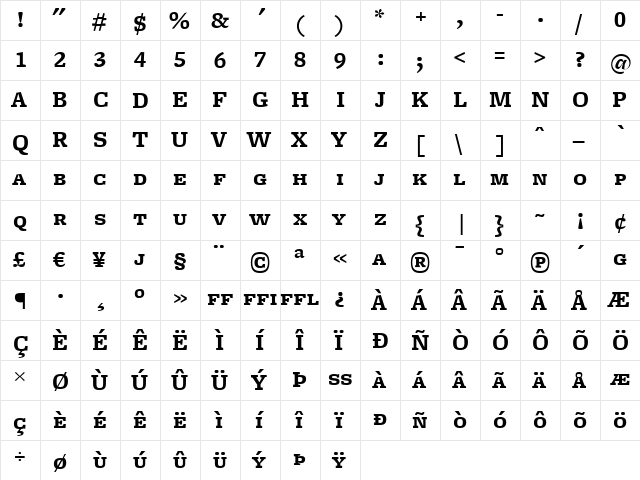
FreightMicro BoldSC
| Foundry | Joshua Darden & Phil's Fonts, Inc |
| Designer | Joshua Darden |
Design Context for FreightMicro Typeface
FreightMicro takes a measured approach to typography — its balanced proportions and neutral character make it a reliable workhorse for both digital and print work. The heavy weight commands attention and anchors typographic hierarchies.